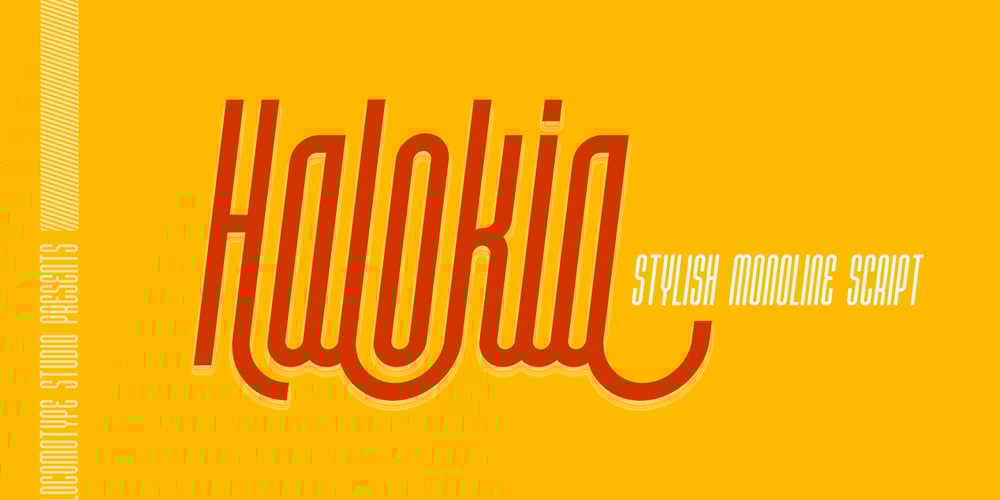
Halokia Font Family was designed by Arwan Sutanto and published by Locomotype. Halokia contains 2 styles and family package options. Introducing Holakia, a monoline script font based on the condensed style that is trendy, elegant and stylish. Supported by many OpenType features such as discretionary ligatures, swashes, contextual alternates etc. It has the potential to create interesting, beautiful and eye-catching typography combinations.Halokia is available in upright and italic versions. This font is perfect for use on packaging designs, quote prints, wedding invitations or personal logos. It is ideal for displaying something that is old-fashioned to make it look more modern and bold.